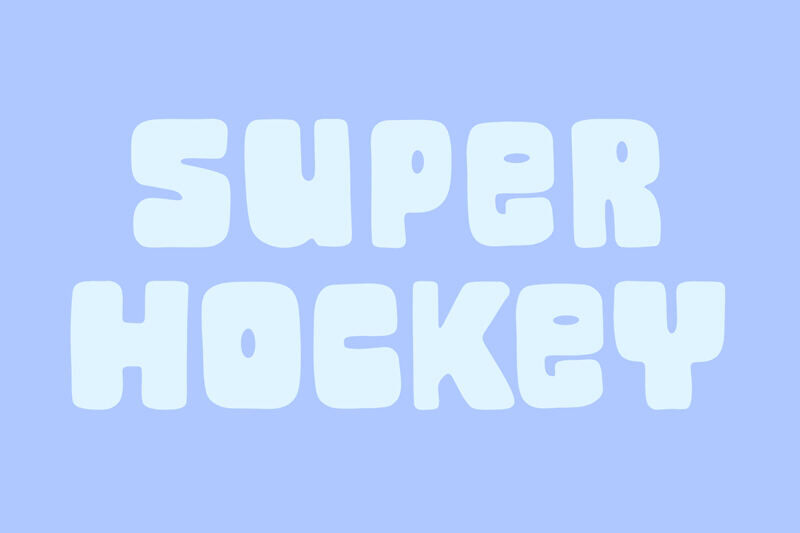
Super Hockey is a bold, playful display font with a sporty, cartoon-inspired style. Its thick strokes and dynamic letterforms evoke energy and movement, making it ideal for logos, posters, and game-themed designs. With a fun, eye-catching personality and broad language support, it works well for creative projects that need a lively, informal tone.